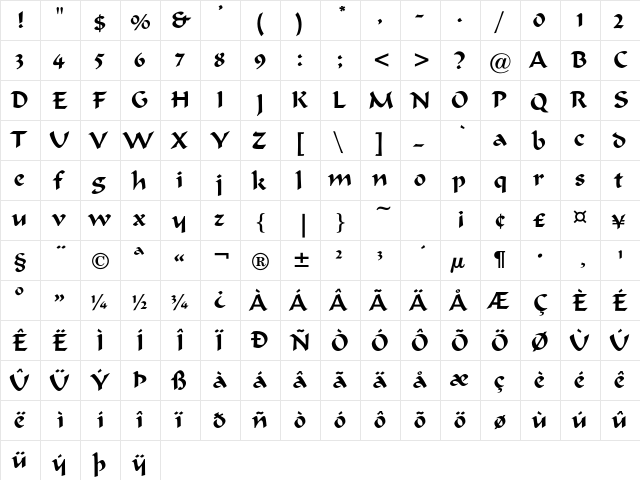
Ondine Regular
Design Context for Ondine Typeface
Ondine offers clean, dependable letterforms without strong stylistic allegiance, making it a practical choice for designers who need flexibility.
Pro Tip: Use Ondine in both headline and body roles to test its range before committing to a single application.